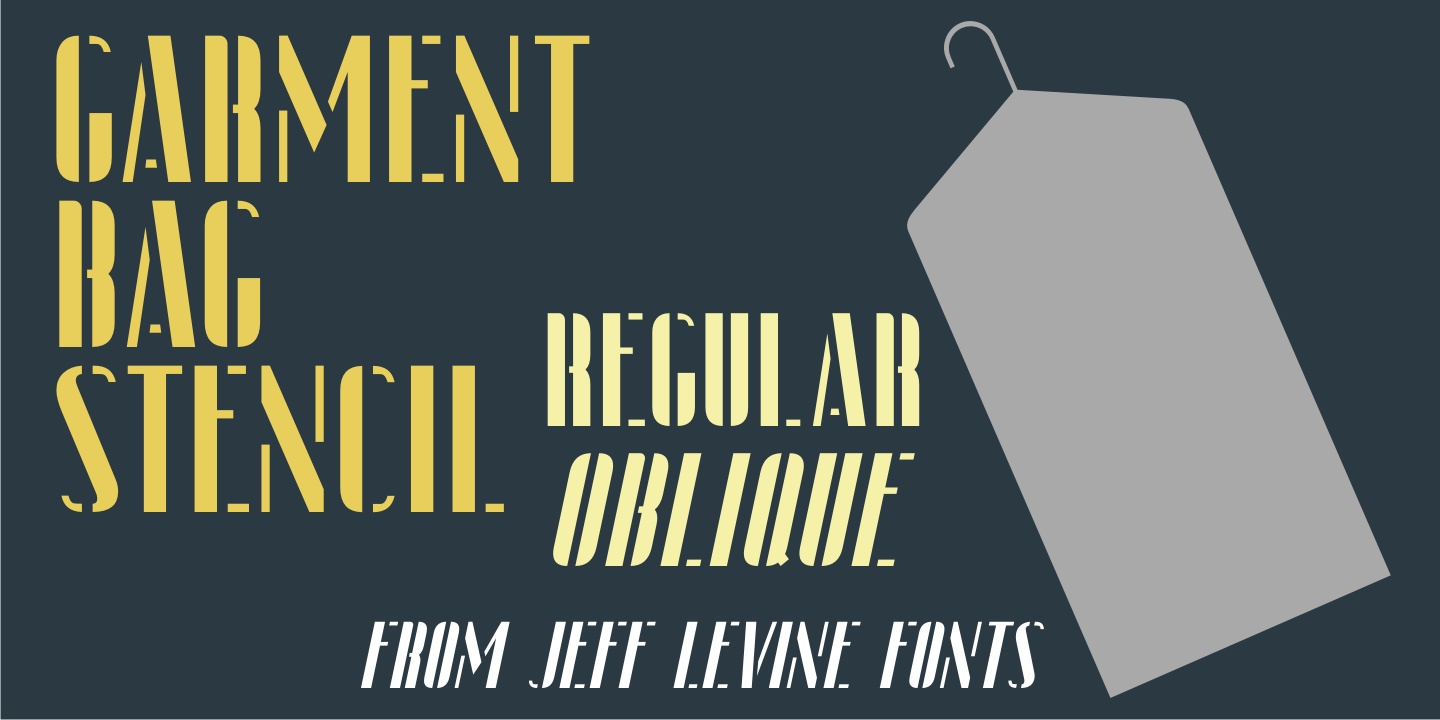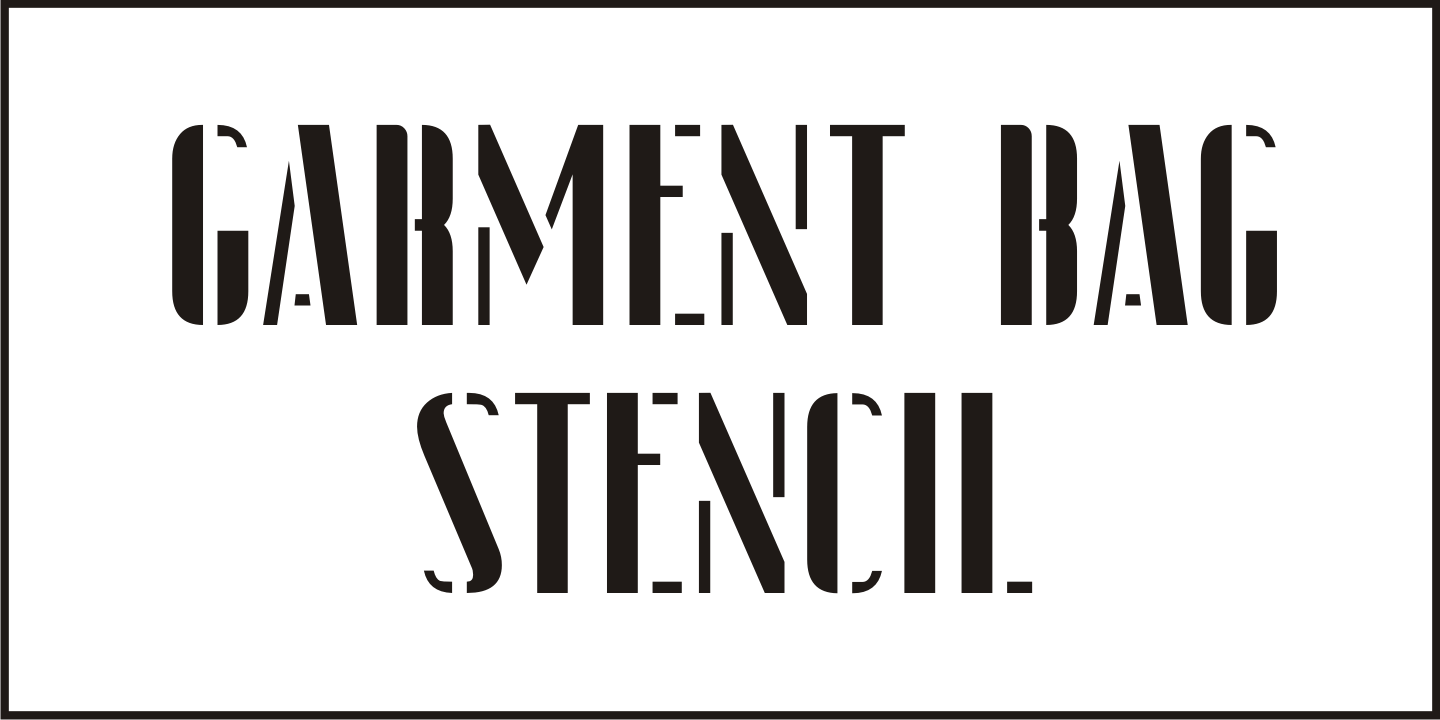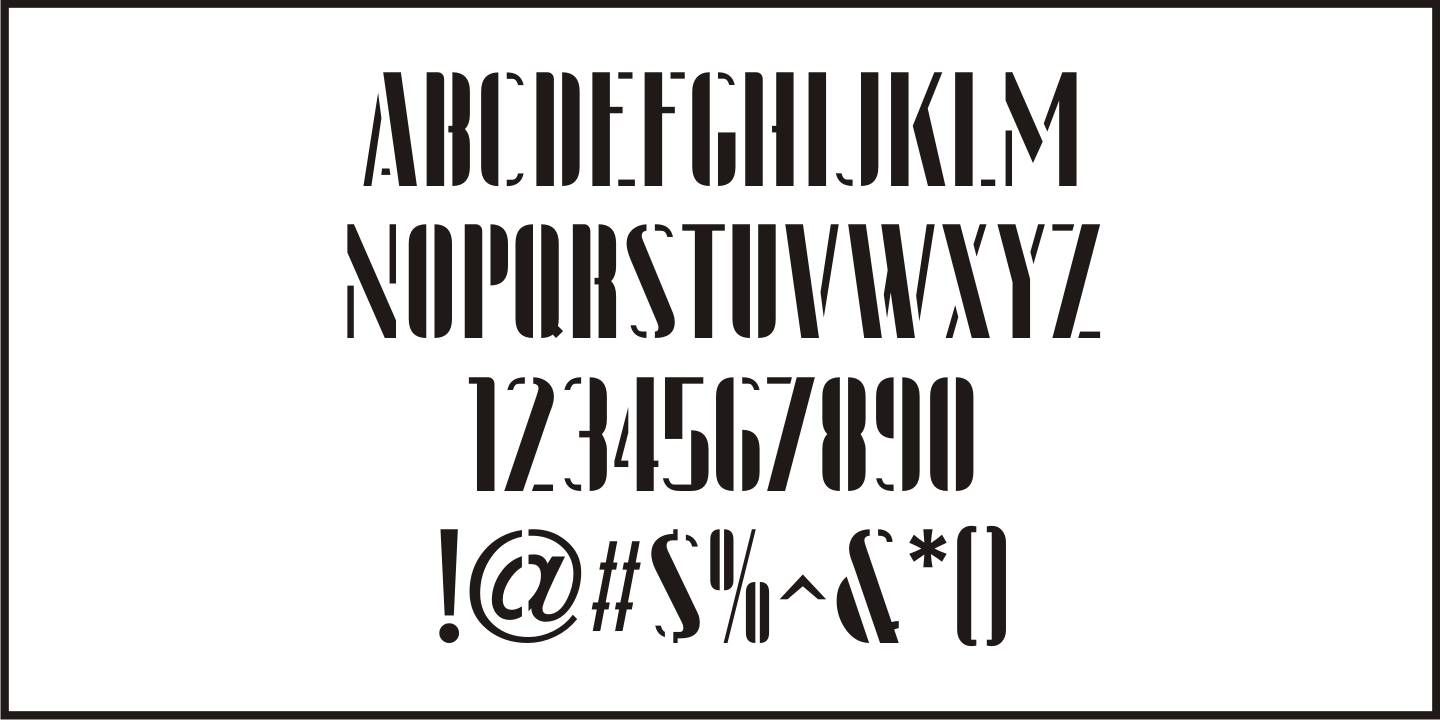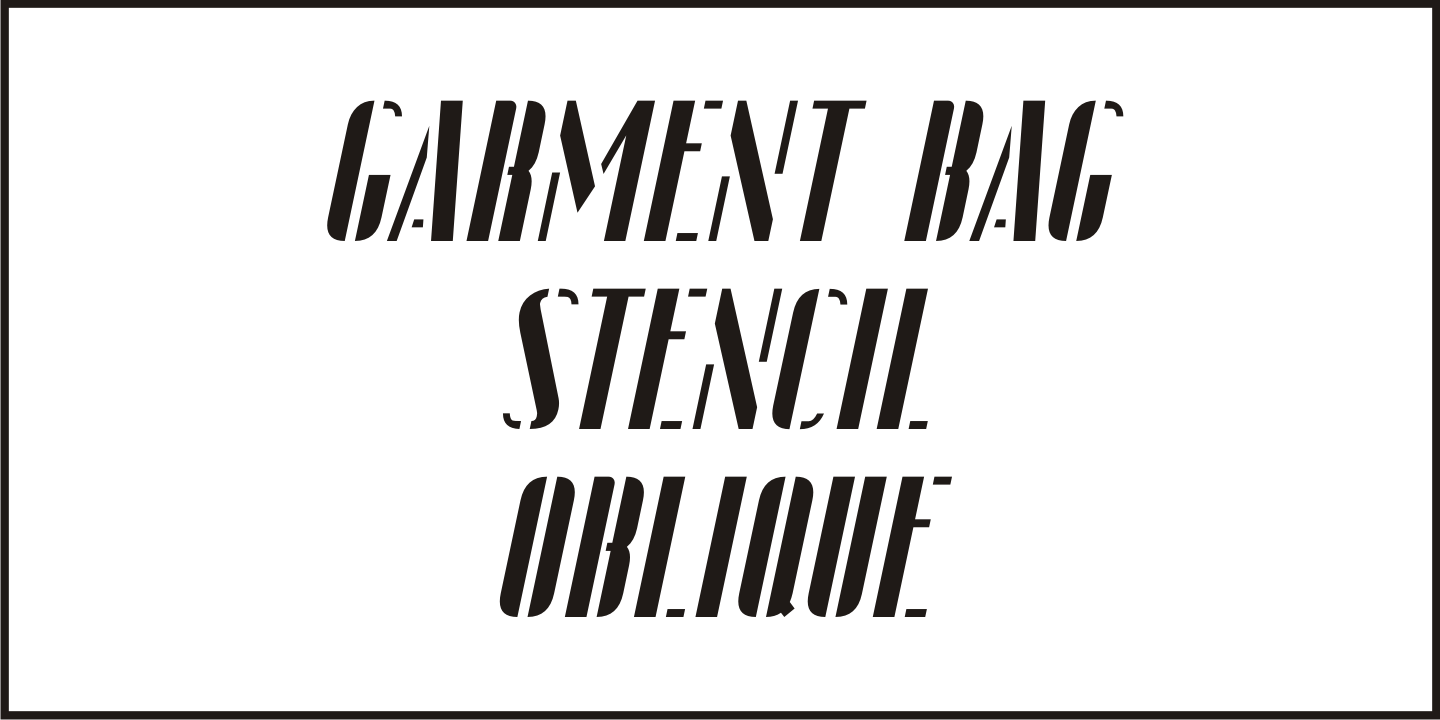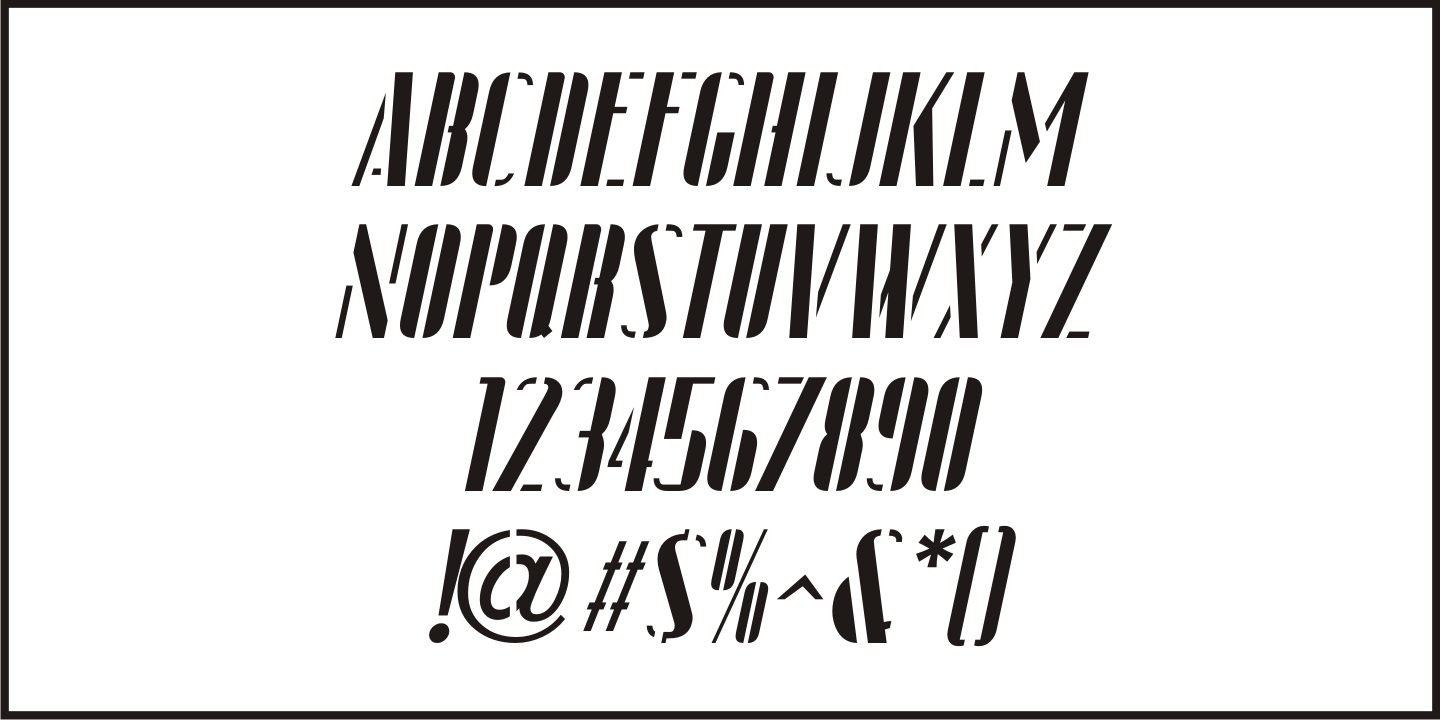
Garment Bag Stencil
Buy NowSearching the internet for interesting type ideas leads one to many unusual items for sale online.
An antique, hand-cut metal stencil from France with the word 'Bagagens” [luggage] provided a condensed Art Deco design in a semi-stencil format (some solid letters, others with traditional 'breaks' within the characters). The digital version of the type style has a more traditional stencil character set.
Garment Bag Stencil JNL is available in both regular and oblique versions.